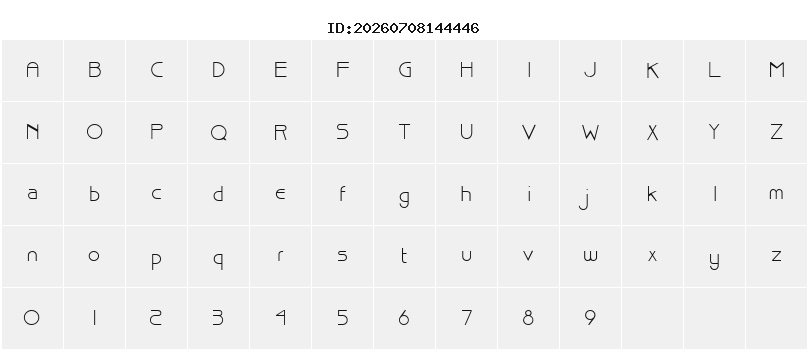
• Font Name: DSU_Draft
• Full Font Name: DSU_Draft
About DSU_Draft.ttf
DSU_Draft.ttf is a modern, elegant sans-serif font designed for ultimate readability and visual harmony. Perfect for branding, headlines, web design, and print materials.